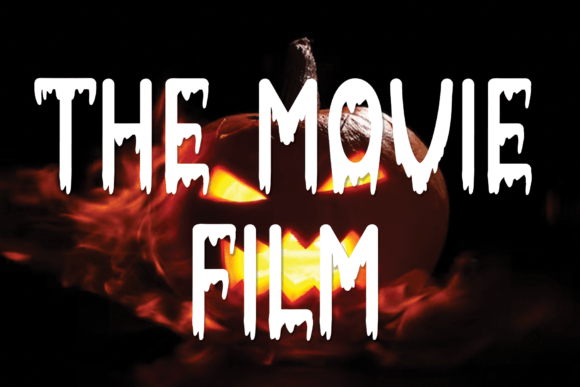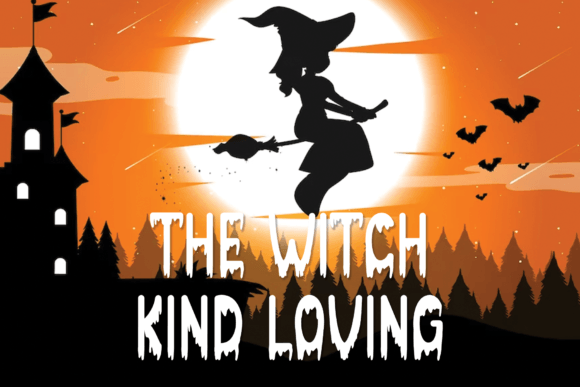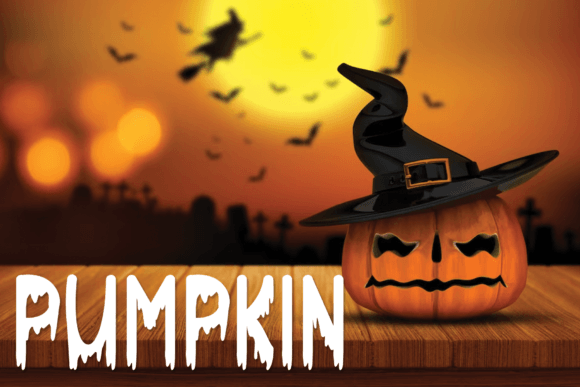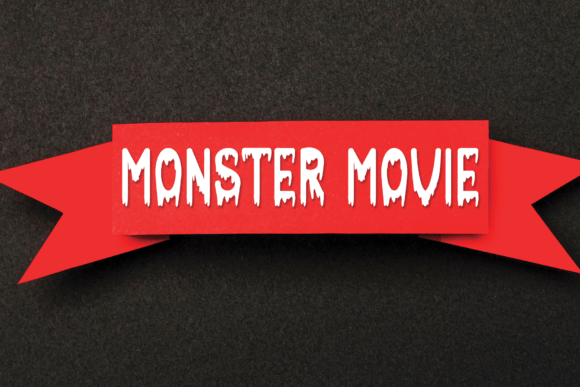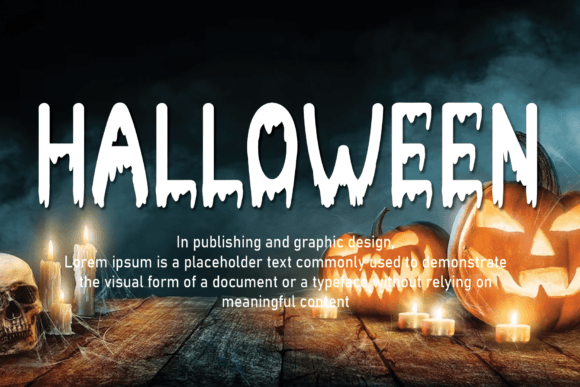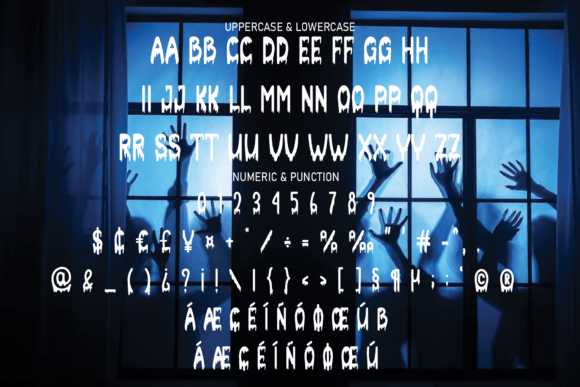
Fright Night Font: The Spookiest Addition to Your Halloween Projects
Are you looking for a font that will add a spooky touch to your Halloween-themed projects? Look no further than the Fright Night Font! This cool, creepy display font is perfect for designers and crafters who want to create eye-catching and eerie designs. In this article, we’ll dive into the world of Fright Night Font and explore its features, uses, and benefits.
What is Fright Night Font?
Fright Night Font is a display font designed to evoke the spirit of Halloween. Its spooky and creepy design makes it perfect for creating eye-catching headlines, titles, and graphics for Halloween-themed projects. The font is available for download and can be used in a variety of design software, including Adobe Illustrator, Photoshop, and Canva.
Features of Fright Night Font
Fright Night Font has several features that make it a great addition to your Halloween design toolkit. Some of its key features include:
- Unique and creepy design: Fright Night Font has a one-of-a-kind design that’s sure to grab attention. Its spooky and eerie look is perfect for Halloween-themed projects.
- High-quality design: The font is designed with high-quality vectors, ensuring that it looks great in any size or resolution.
- Easily readable: Despite its spooky design, Fright Night Font is easily readable, making it perfect for headlines, titles, and other design elements.
- Versatile: Fright Night Font can be used in a variety of design projects, from Halloween-themed party invitations to spooky social media graphics.
Uses of Fright Night Font
Fright Night Font is a versatile font that can be used in a variety of design projects. Some of its popular uses include:
- Halloween party invitations: Create spooky and eye-catching invitations for your Halloween party with Fright Night Font.
- Spooky social media graphics: Add a touch of Halloween spirit to your social media graphics with Fright Night Font.
- Halloween-themed crafts: Use Fright Night Font to add a spooky touch to your Halloween-themed crafts, such as pumpkin carvings, Halloween cards, and more.
- Horror movie promotions: Fright Night Font is perfect for horror movie promotions, adding a spooky and eerie touch to your movie posters and trailers.
Benefits of Using Fright Night Font
Using Fright Night Font in your design projects has several benefits. Some of the benefits include:
- Adds a spooky touch: Fright Night Font adds a spooky and eerie touch to your design projects, perfect for Halloween-themed designs.
- Grabs attention: The unique and creepy design of Fright Night Font grabs attention and makes your design projects stand out.
- Easily customizable: Fright Night Font is easily customizable, allowing you to adjust its size, color, and style to fit your design needs.
- Perfect for designers and crafters: Fright Night Font is perfect for designers and crafters who want to add a spooky touch to their Halloween-themed projects.